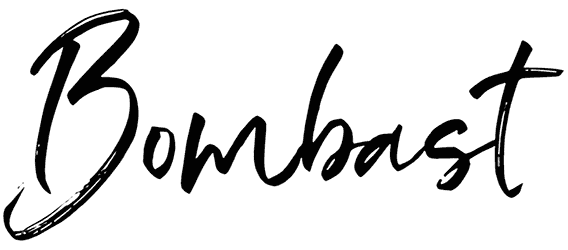
Bombast Font
While inspired by the creative playing of an inky brush style on paper, Bombast, as a script font, has joined the writing domain to give organic and natural elements to your typography projects. This brush font can leave behind others smoothly and sweetly in designing any quotes, greeting cards, cosmetic brands, T-shirts, and any other impressive displays with its animated handwriting style.